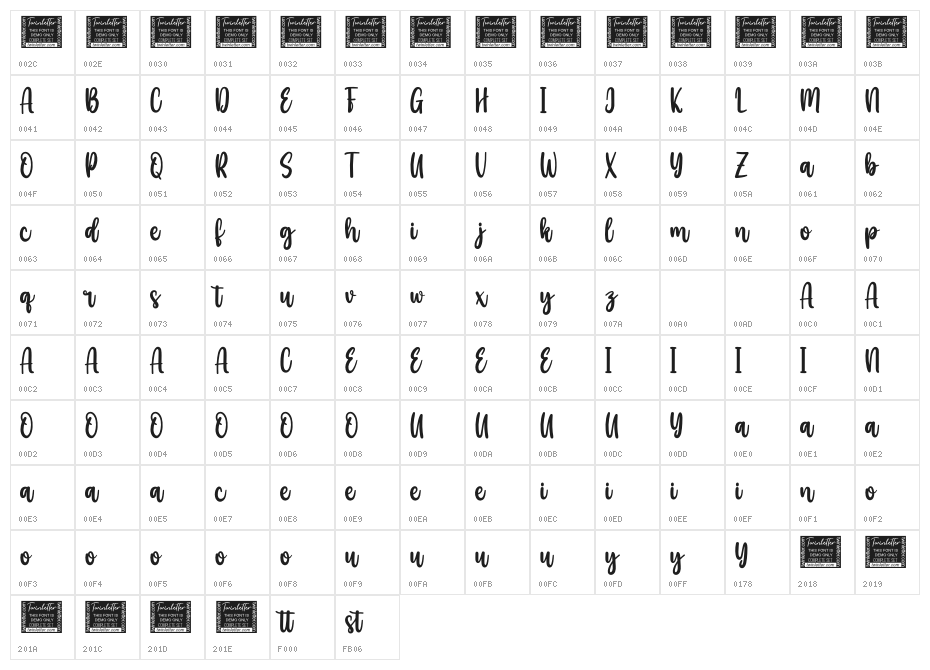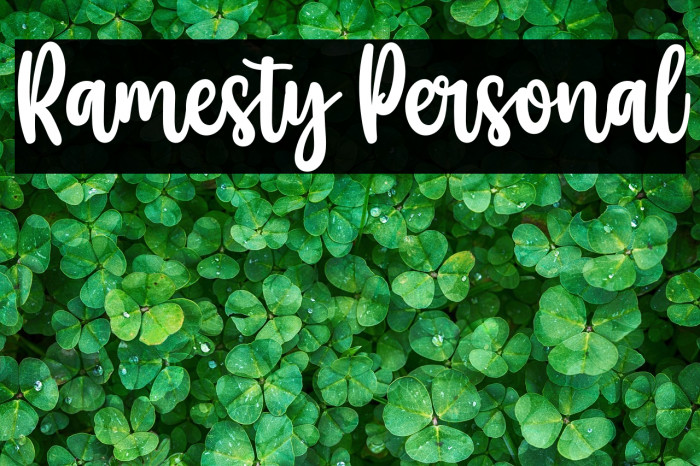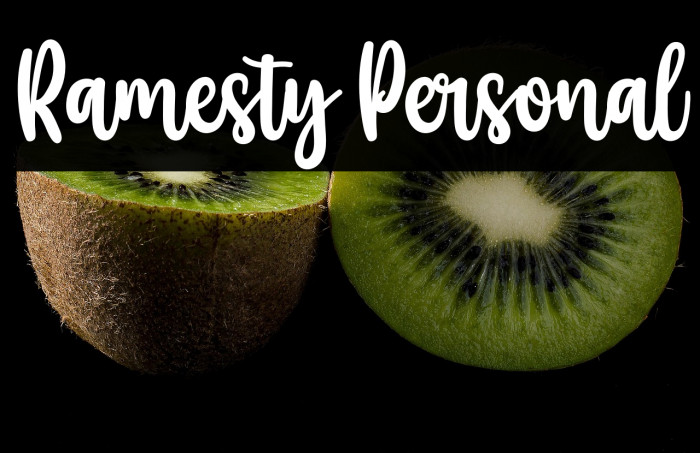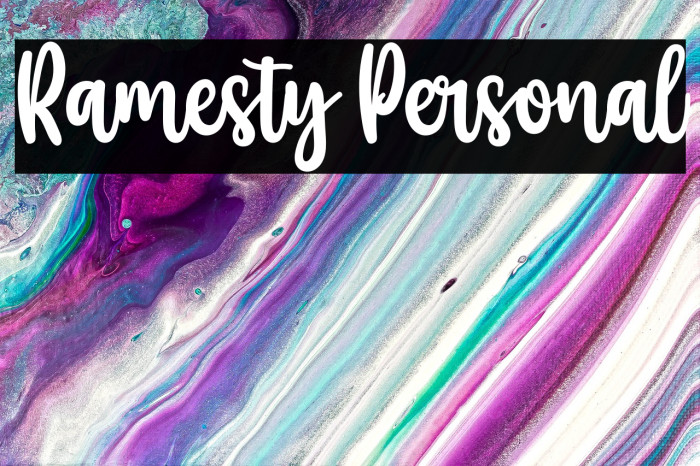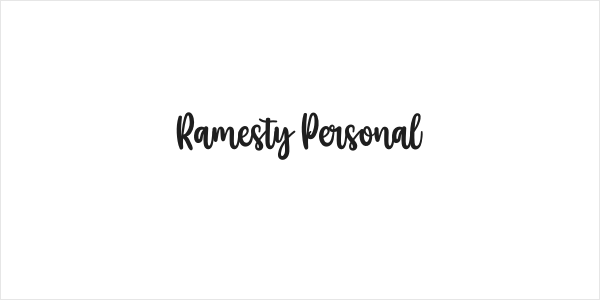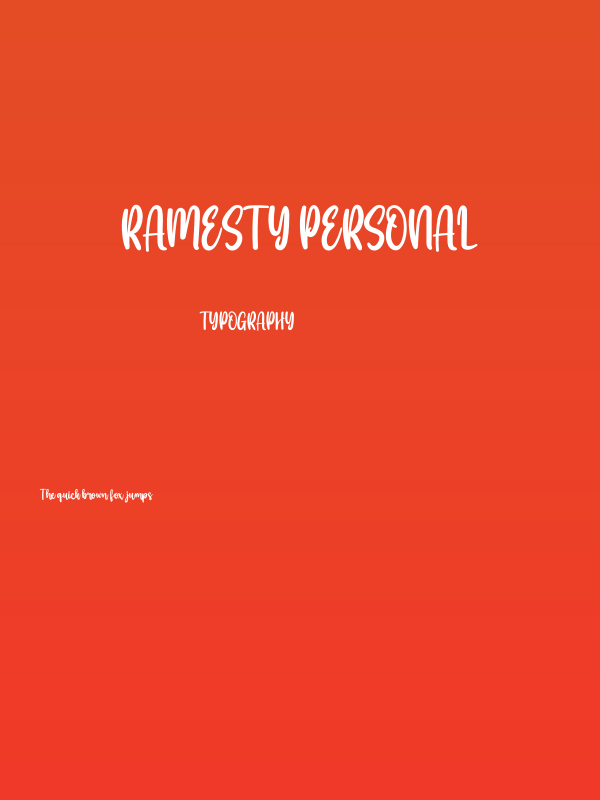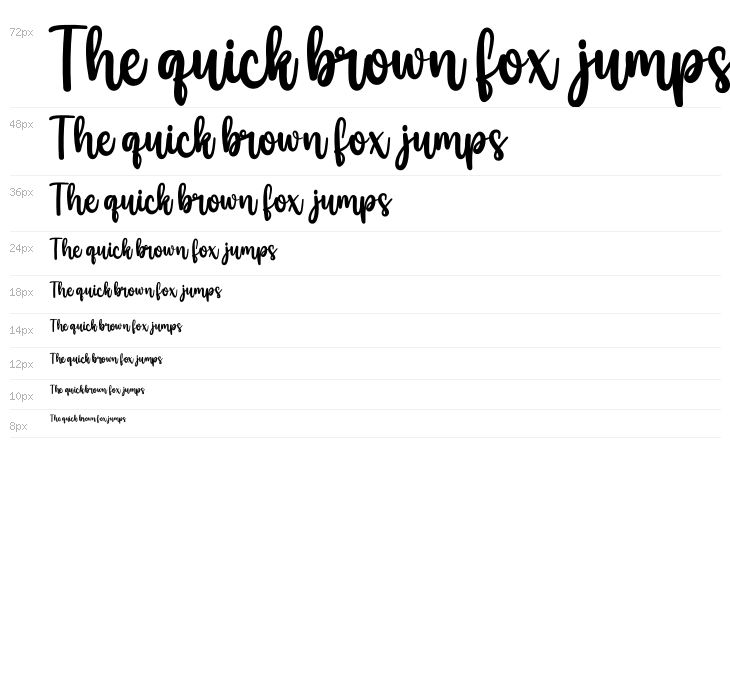
Ramesty Personal Font
Ramesty Personal Description
This font features a bold and expressive handwritten style, characterized by its fluid and dynamic strokes. The uppercase letters are tall and slightly condensed, while the lowercase letters maintain a consistent flow with a playful touch. The strokes are thick, providing a strong visual impact, yet the curves and loops add a sense of elegance and movement. This font is well-suited for creative projects that require a personal and artistic touch. The overall appearance is both modern and approachable, making it versatile for various design applications.
Use CaseLogos, Headlines, Invitations
Proposed ProjectsIdeal for branding, invitations, greeting cards, and social media graphics.